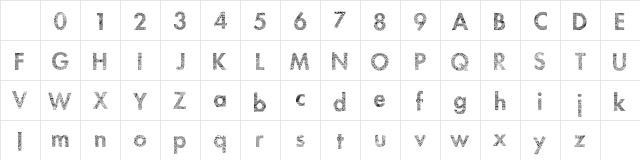
Complete Futuremoon Regular glyph index. Displaying only characters natively supported by Futuremoon Regular font.
Futuremoon has a distinctly futuristic character, with geometric precision and clean angles that feel at home in technology, gaming, and sci-fi contexts.
Pro Tip: Try Futuremoon with generous letter-spacing in UI labels and navigation - the geometric forms benefit from room to breathe.